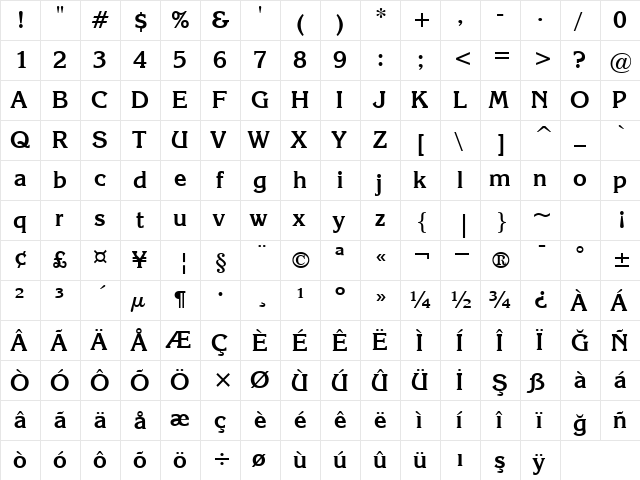
00403 Regular
Design Context for 00403 Typeface
00403 takes a measured approach to typography — its balanced proportions and neutral character make it a reliable workhorse for both digital and print work.